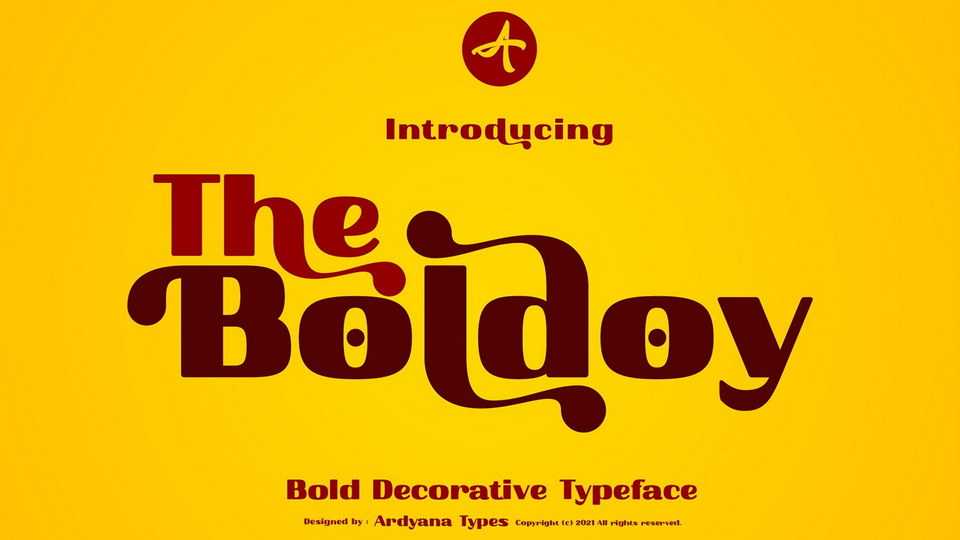
Download Boldoy font, an attractive display typeface with an agile and energic character. Boldoy is so playful font but also easy to read and applied in various design styles.
Designer: Ardyana Types